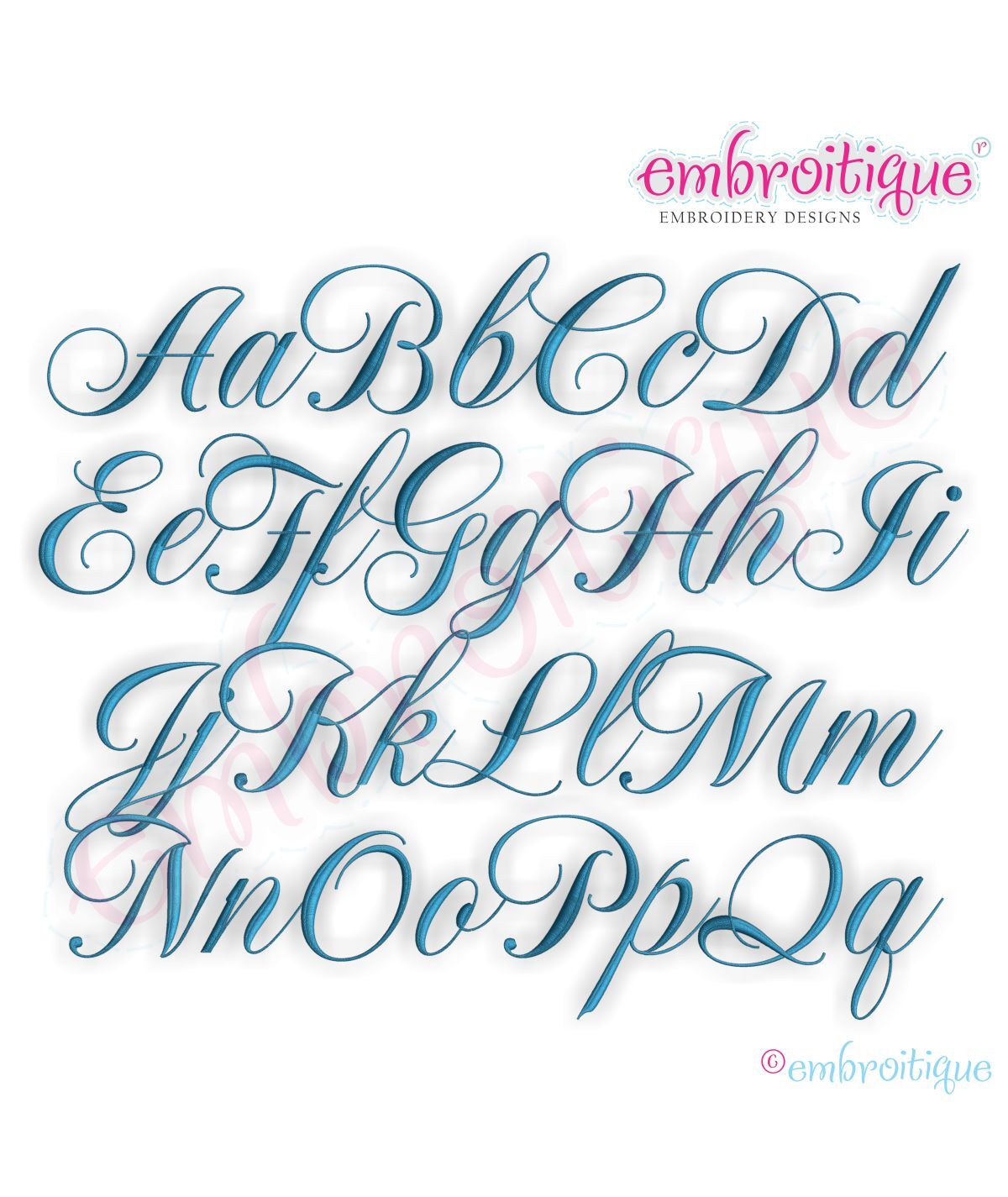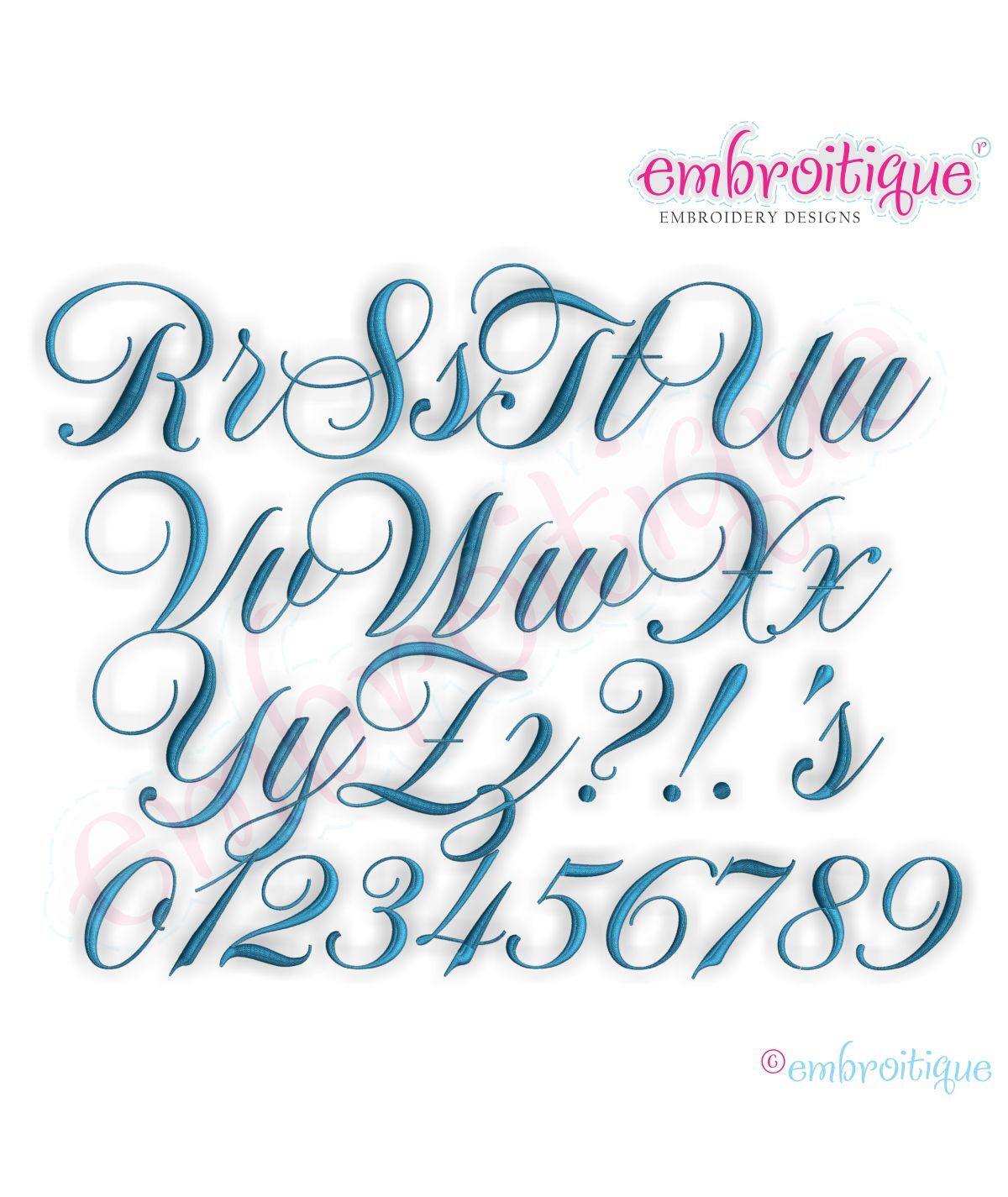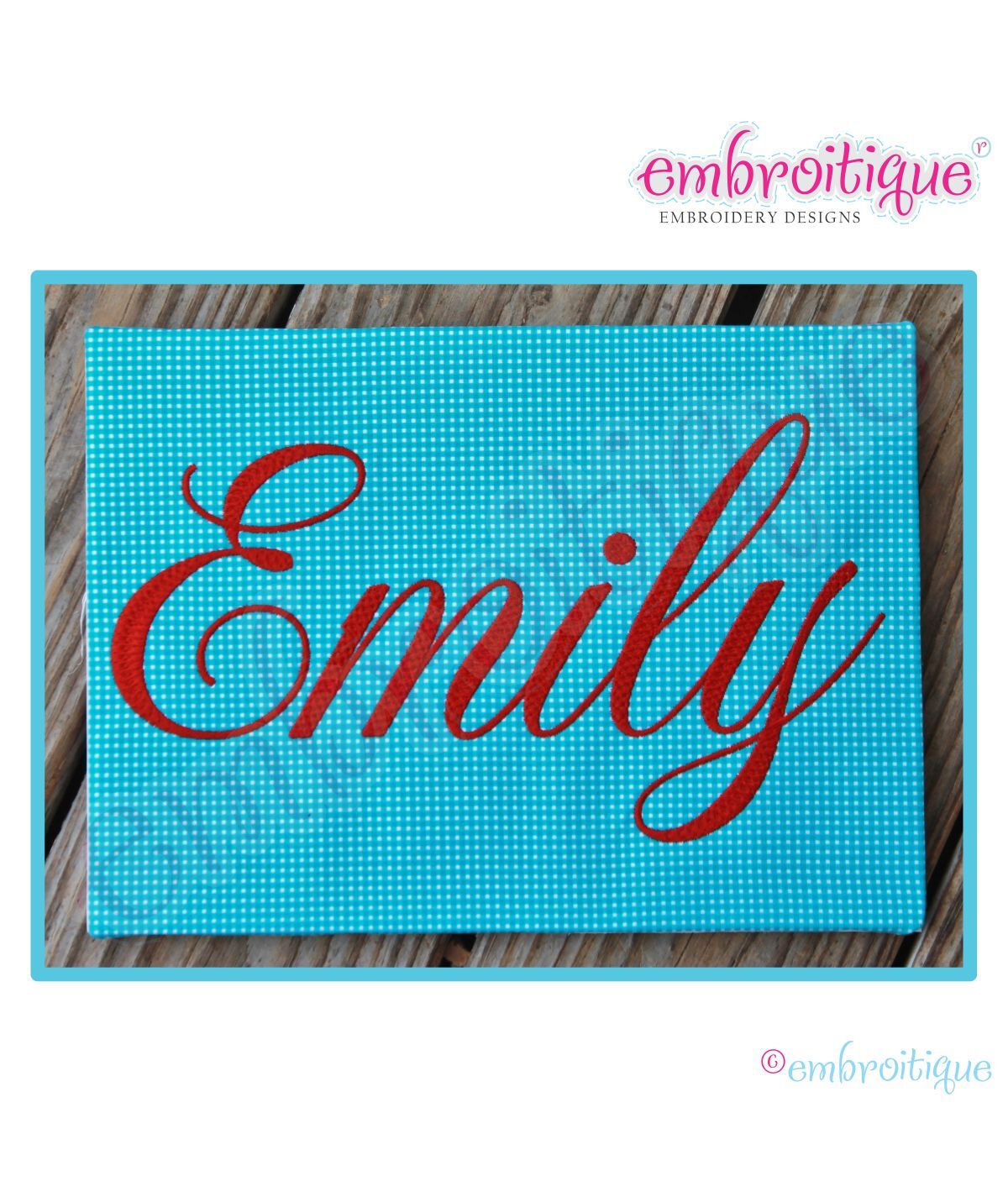
Emily Monogram Set - Medium
An absolutely beautiful font that is versatile and will be a favorite 'go to' set for years to come!
Decorative Fill Stitch
Aa-Zz 0-9 ?'!&